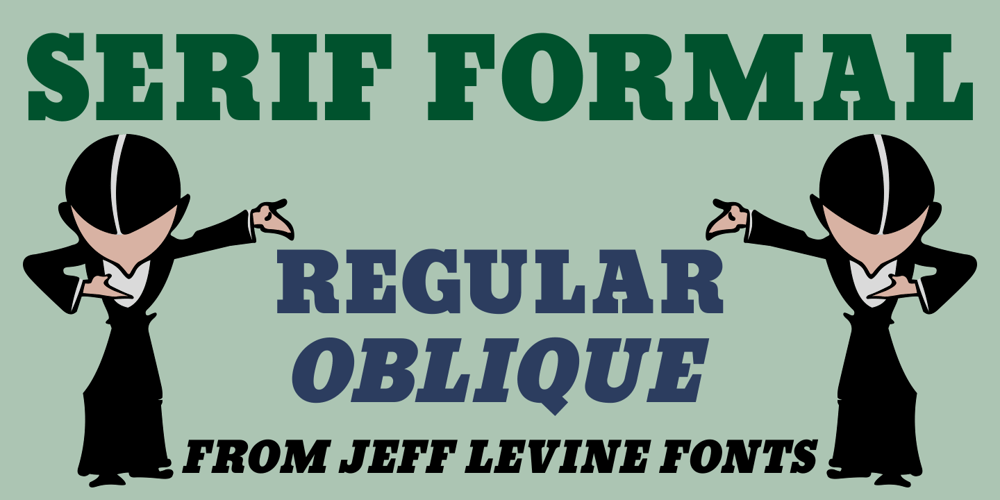
Serif Formal Oblique JNL Font Family was designed by Jeff Levine and published by Jeff Levine. Serif Formal Oblique JNL contains 2 styles and family package options. An advertisement in a 1936 issue of “The Film Daily” for the movie “Mr. Deeds Goes to Town” had much of its copy set in an extrabold typeface similar to the Beton/Stymie/Karnac group of slabserif designs.This is now available digitally as Serif Formal JNL in both regular and oblique versions.